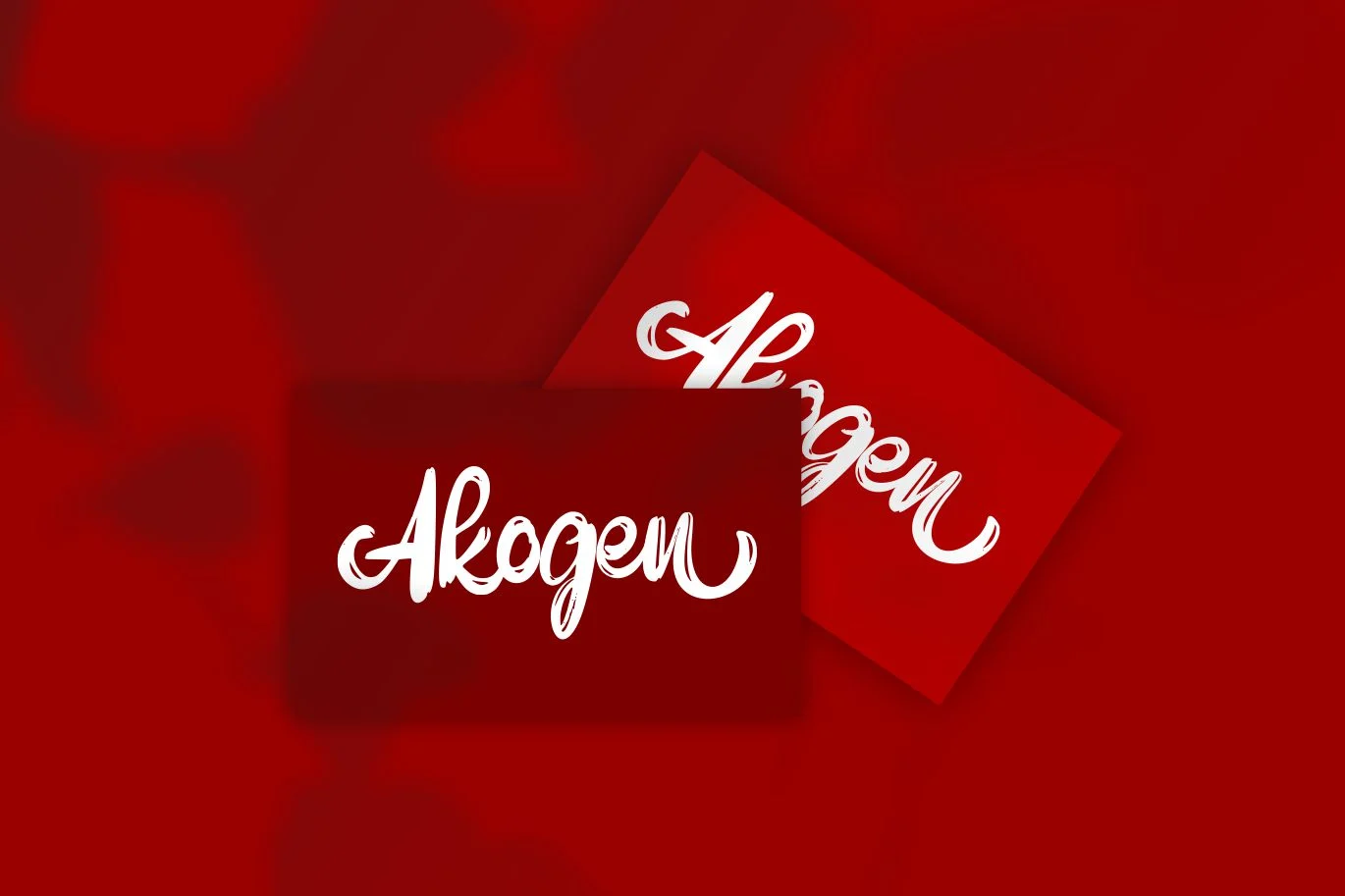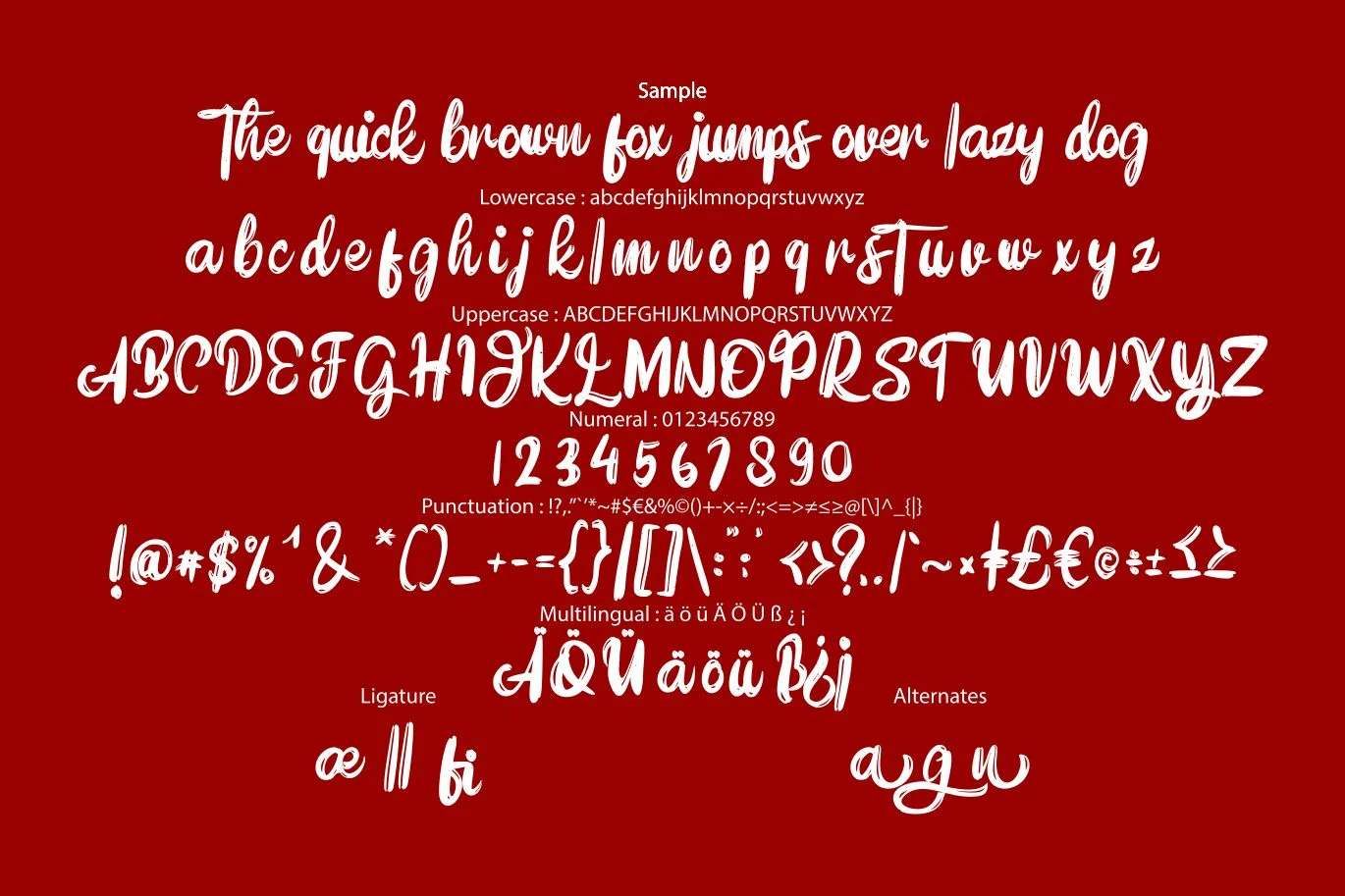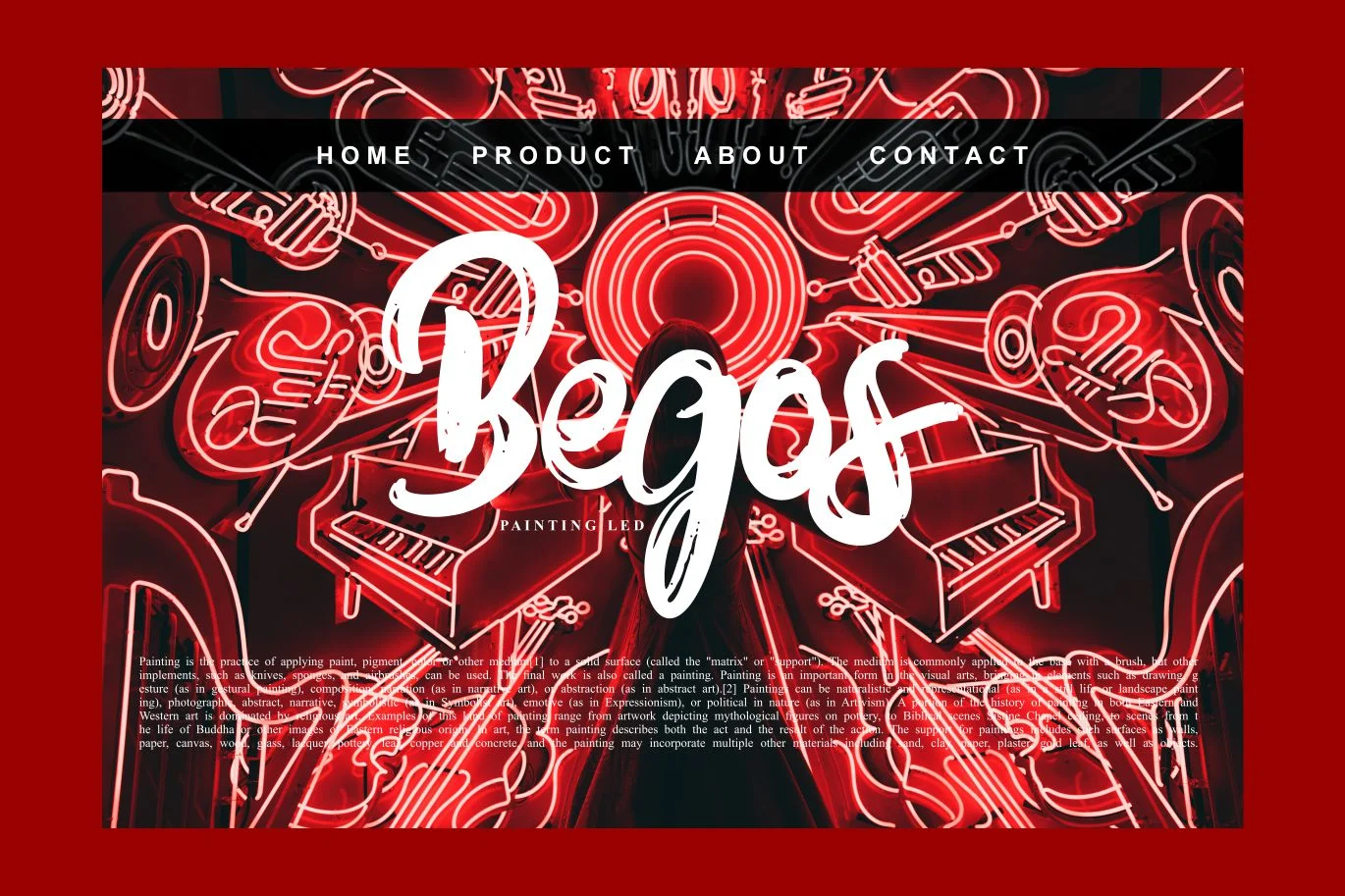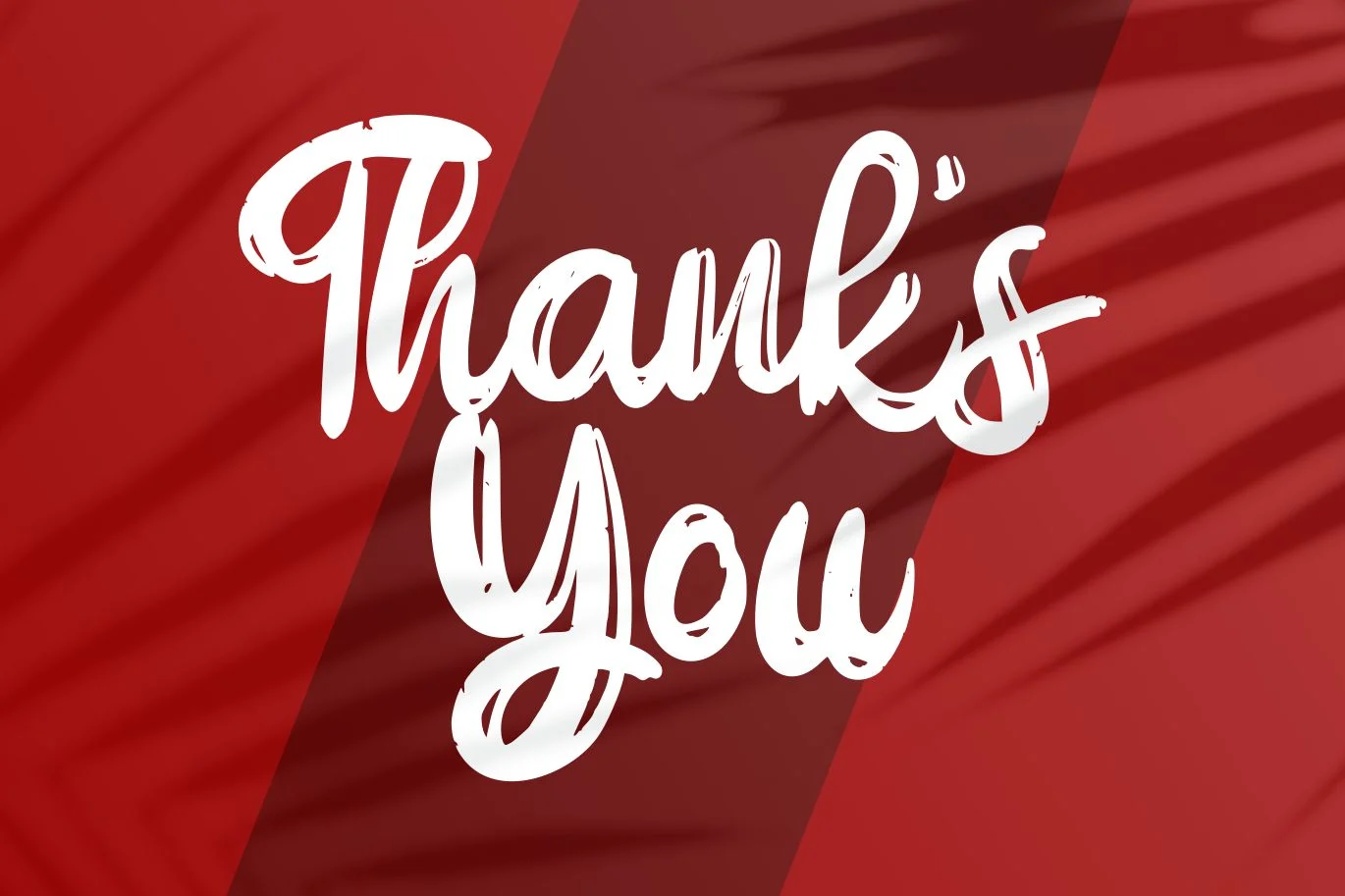
Begin Artistic Script Font
Begin Artistic Script - is a new font that is authentic and suitable for many of your visual needs, like for invitation, greeting cards, branding materials, business cards, quotes, posters, and more!
- special character for Alternates and Ligatures
- Fonts include Multilingual Support